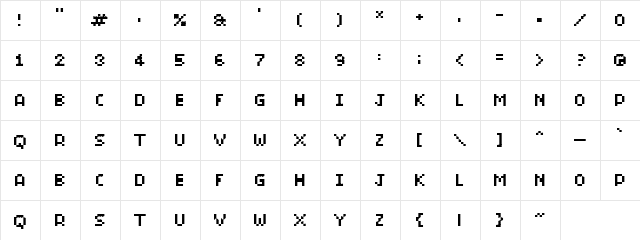
BitMicro01 Font Preview
BitMicro01 BitMicro01
| Foundry | Steiner |
Design Context for BitMicro01 Typeface
BitMicro01 is a composed and adaptable typeface that performs quietly and consistently across a wide range of design contexts.